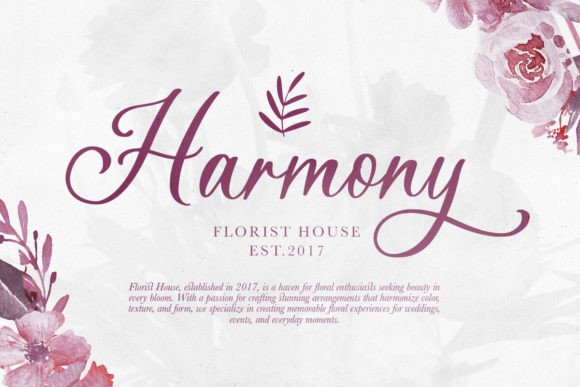
Rustic Wedding is a lovely modern script with handmade looks that contain lowercase, uppercase, symbol, and also support multi language. Including ligatures, swash, and many alternates. You can use this font to make a logo for branding, beautiful fashion design, suitable for wedding invitation, or handwritten quote. With special “AND” alternates that will make your rustic wedding invitations more stunning.
Rustic Wedding Font